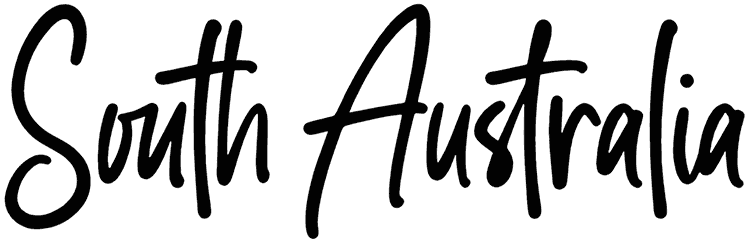
South Australia Font
South Australia is a script font that comes with a smooth texture with a sophisticated flow that establishes a sense of delicacy, softness, momentum, and drama. If you are in the middle of a graphic project like posters, book covers, magazines, product packaging, and flyers that require a personalized touch, then we offer you to pick this handwritten font immediately.